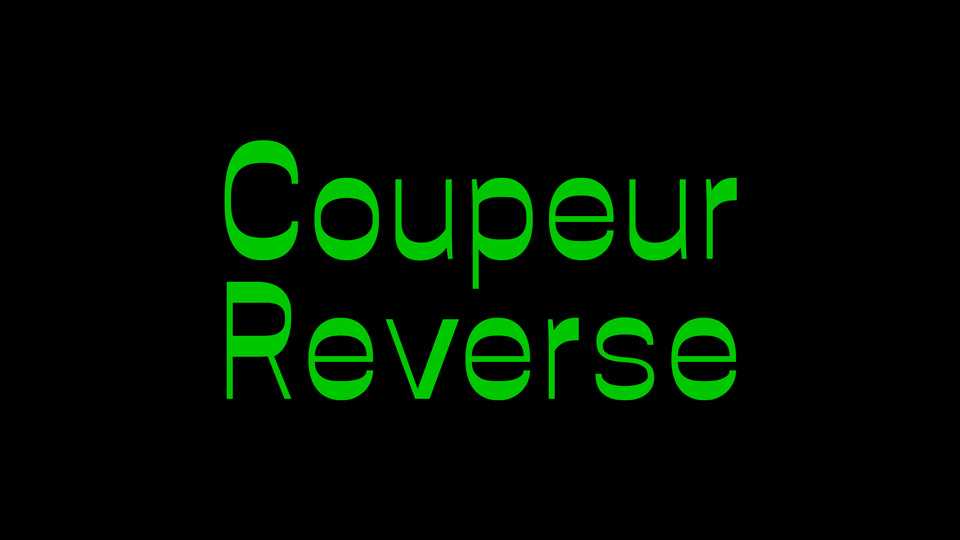
Download Coupeur Reverse font, a sans serif typeface inspired by a reverse-contrast principles and based on the Cooper Hewitt font.
Designer: Saulou Margaux